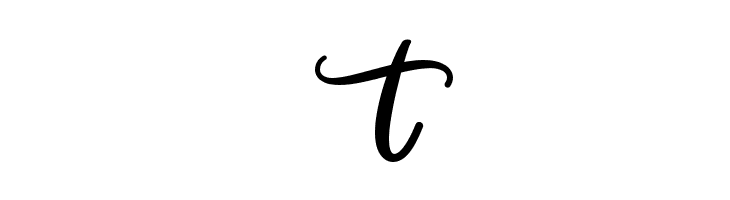
A bold, cursive script font with a lively and expressive style.
A lively handwritten font with smooth, cursive strokes and a playful style.
A playful, casual handwritten font with smooth curves and a friendly appearance.
A bold, playful script font with a lively, handwritten style.